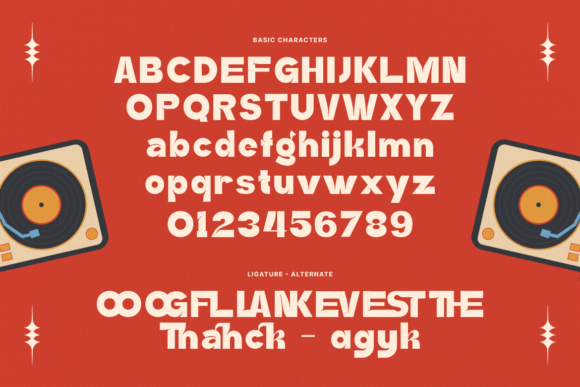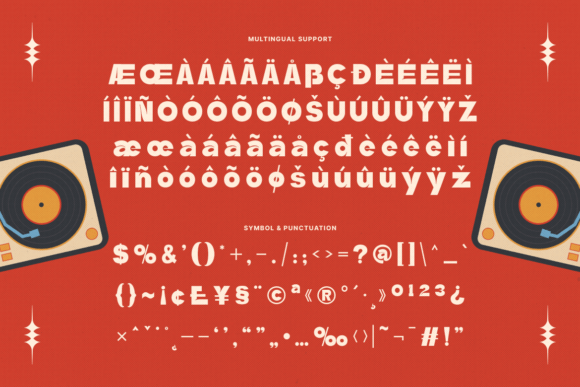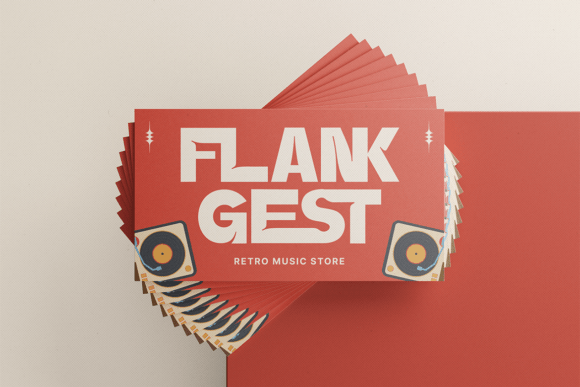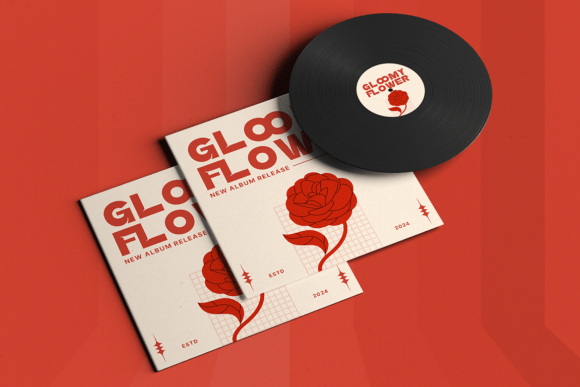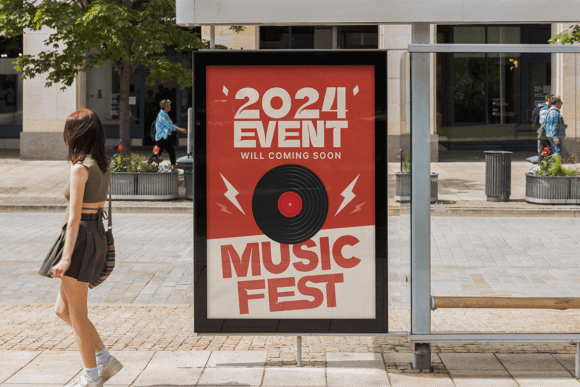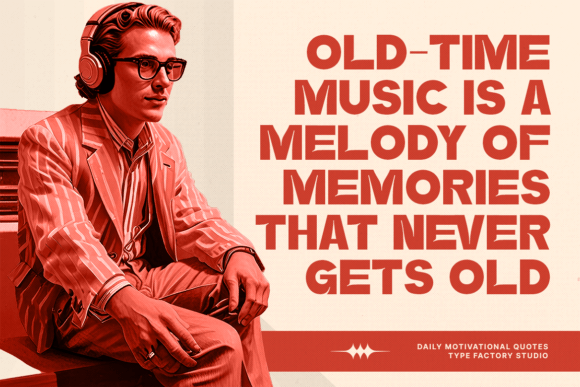
The Retro Charm of Flogest Font: A Designer’s Delight
I still remember the design project that led me to discover Flogest Font. I was working on a vintage-inspired music poster, and I needed a font that would transport my audience back to the mid-century era. After hours of searching, I stumbled upon Flogest, and it was love at first sight! ✨ The bold, rounded curves and distinctive details instantly gave me the retro vibe I was looking for. In this article, I’ll share my experience with Flogest, its features, and how to make the most of this amazing font.
An Honest Review of Flogest Font
What I Love About Flogest
- 💥 Retro charm: Flogest’s unique blend of geometric structure and decorative cuts gives it an unmistakable retro character.
- ✅ Versatility: This font works well for various design projects, from posters and album covers to branding and editorial layouts.
- 🎉 Expressive tone: Flogest’s bold letterforms and distinctive details create a strong visual impact, perfect for headlines and short statements.
- 🌎 Multilingual support: The font includes support for multiple languages, making it a great choice for global design projects.
While Flogest is an excellent font, there are a few things to keep in mind: 🤔
- ⚠️ Limited use in small sizes: Flogest’s bold design can become overwhelming in smaller sizes, making it less suitable for body text.
- ⚠️ Some ligatures may not work well: While the font includes selected ligatures, some combinations might not work as expected.
The Story Behind Flogest Font
Flogest Font was inspired by the designer’s love for vintage music posters, record sleeves, and classic storefront signage. The goal was to create a font that captures the essence of mid-century design while being versatile and easy to use. The designer drew inspiration from iconic designs of the era, combining geometric structure with decorative cuts to create a unique and recognizable font.
| What is Flogest Font best used for? | Flogest is ideal for headlines, short statements, posters, album covers, event promotions, branding, packaging, and editorial layouts that require a nostalgic and expressive tone. |
| Can I use Flogest for body text? | While Flogest can be used for body text, its bold design may not be suitable for smaller sizes. It’s best used for headlines and short statements. |
| Does Flogest support multiple languages? | Yes, Flogest includes multilingual support, making it a great choice for global design projects. |